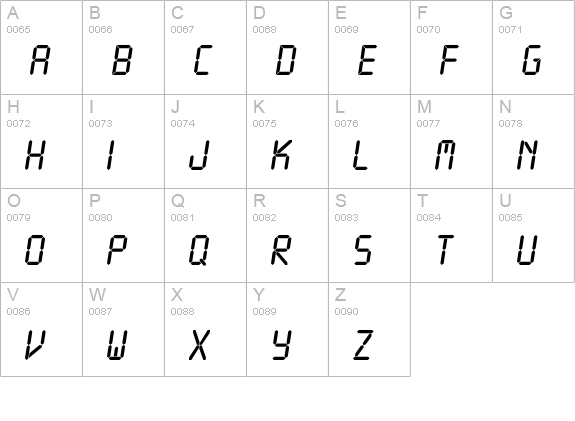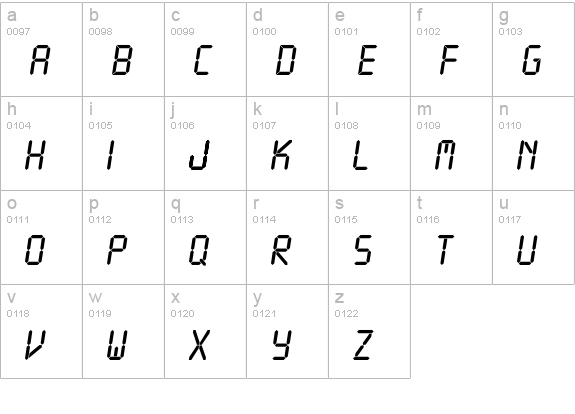
LED Font Details
Introducing the captivating LED font, a visually stunning typographic masterpiece that will add a touch of futuristic elegance to your designs. With its sleek and modern appearance, this font is perfect for creating eye-catching headlines, captivating logos, and stylish branding materials. The LED font is designed with precision, featuring sharp, clean lines and perfectly balanced characters. Each letter is meticulously crafted to emulate the iconic look of LED lights, exuding a sense of technological innovation and contemporary sophistication. What sets this font apart is not just its striking aesthetics, but also its versatility. Whether you're designing for print or digital platforms, the LED font seamlessly adapts to any medium, ensuring your message shines through with clarity and impact. Best of all, the LED font is available for free download exclusively at FontsMarket.com. As a creative professional, you understand the value of high-quality resources without breaking the bank. Now you can effortlessly access this extraordinary font without any cost, thanks to its availability on FontsMarket.com. Unleash your creativity and explore the endless design possibilities that the LED font offers. From advertising campaigns to website banners, this font will effortlessly elevate your designs to the next level. With its clean, futuristic aesthetic and the added convenience of being freely available for download, the LED font is a must-have for any design enthusiast or professional. Download the LED font today from FontsMarket.com and let your imagination run wild with this exceptional typographic gem. Transform your projects into visually stunning works of art that leave a lasting impression, all with the help of the free LED font.